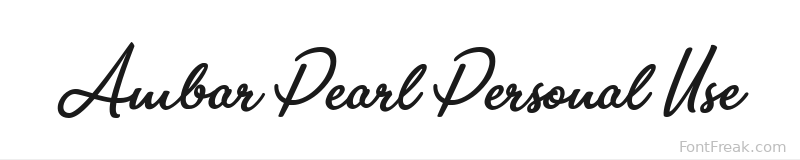
Ambar Pearl Personal Use
Ambar Pearl Personal Use is a beautifully crafted script font designed by Billy Argel Fonts, categorized under decorative typefaces. This font features an elegant, flowing style that exudes a sense of sophistication and charm. The strokes are characterized by a moderate weight, providing a balanced look that is neither too bold nor too light. The contrast in the letterforms creates an engaging visual dynamic, while the ample spacing between characters ensures readability, making it suitable for various design applications.
This font is particularly well-suited for personal projects, including wedding invitations, where its graceful curves can enhance the romantic aesthetic. Additionally, it works wonderfully for greeting cards, allowing creators to add a personal touch to their messages. Ambar Pearl is also ideal for branding purposes, especially for small businesses looking to convey a unique identity, such as artisanal cafes or boutique shops. Moreover, it stands out in the realm of digital content creation, making it a great choice for blog headers and social media graphics that require a touch of elegance.
What makes the Ambar Pearl Personal Use font truly exceptional is its ability to blend artistic flair with functionality. Its distinctive style captures attention while remaining practical for various applications. Whether you are designing an invitation or a brand logo, this font will undoubtedly add a layer of sophistication and elegance that leaves a lasting impression.